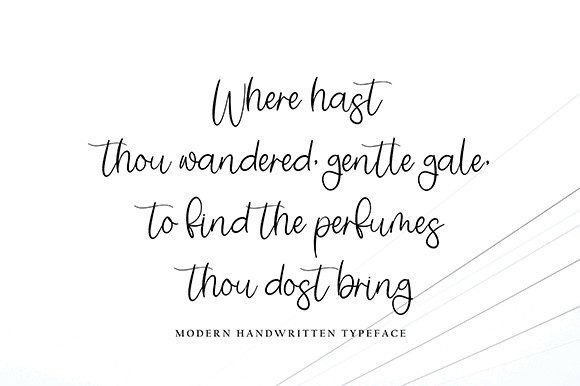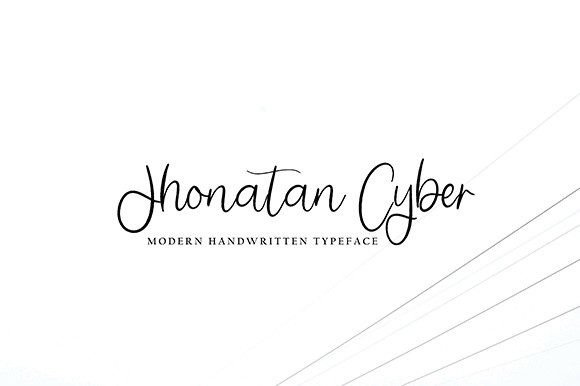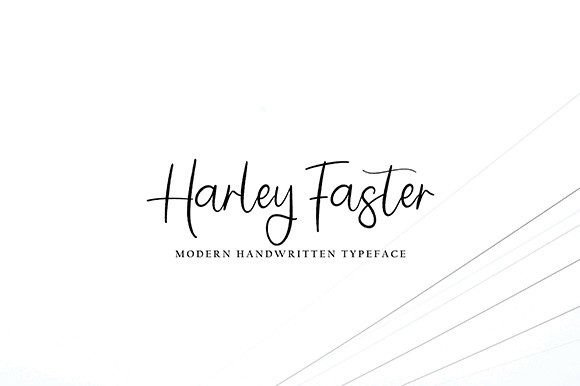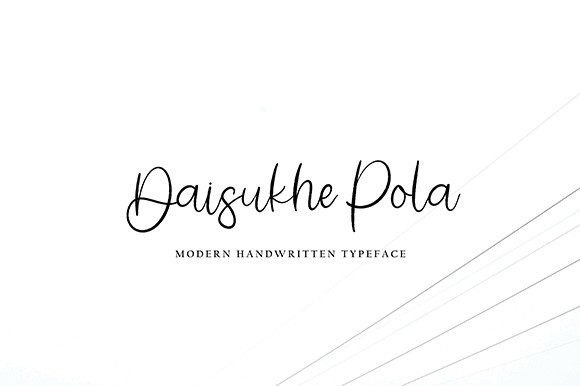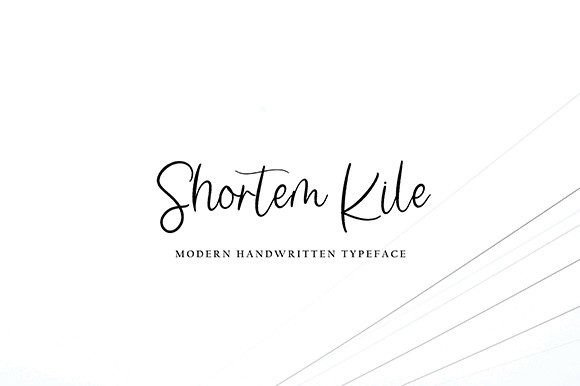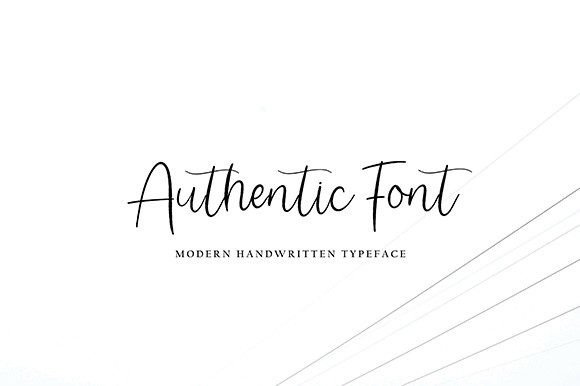
Introduction to Jhaligho Font
Imagine you’re sitting at your desk, surrounded by scattered papers, paint swatches, and a cup of coffee that’s seen better days. The creative juices are flowing, and you’re on the hunt for the perfect font to bring your design to life. As you scroll through your favorite design resources, one font catches your eye – Jhaligho Font. Its elegant, handwritten feel is like a breath of fresh air, and you can’t wait to see how it’ll elevate your project.
| 👤 Author | Pineungtype & Missinklab |
For designers, finding the right font can make all the difference in a creative project. And that’s exactly why Jhaligho Font is a valuable addition to any design arsenal. With its high-quality, transparent background, it’s perfect for a wide range of applications, from wedding invitations to business cards.
Key Features of Jhaligho Font
- High-quality, unique typography for creative projects, available for free download as a design resource.
- Transparent background, allowing for easy integration with various design elements and backgrounds.
- Includes a range of weights and styles to suit various design needs, from bold and dramatic to elegant and refined.
- Designed to work well at high resolutions, making it suitable for large-scale creative projects and high-end printing.
- Perfect for use in branding, typography-based art, and other creative endeavors where a unique and eye-catching font is desired.
Honest Review: Jhaligho Font
As a designer, I’m always on the lookout for high-quality design resources to elevate my creative projects. The Jhaligho Font is a great addition to my toolkit, and I’m excited to share my honest review with you.
- The Jhaligho Font has a unique, exotic flair that adds a touch of elegance to any design project.
- The transparent background allows for easy customization and pairing with other design elements.
- The Jhaligho Font may not be suitable for projects requiring a more modern or minimalist aesthetic.
- The font’s exotic flair may be overwhelming for some design projects, so it’s essential to use it sparingly.
Overall, I’m impressed with the Jhaligho Font’s quality and versatility. While it may not be the best fit for every project, it’s a valuable addition to any designer’s arsenal. If you’re looking for a unique and high-quality font to elevate your creative project, the Jhaligho Font is definitely worth checking out.
Tips for Getting the Most Out of Jhaligho Font
For optimal results, use the Jhaligho Font in conjunction with a high contrast background to make the font stand out. You can also experiment with different font sizes and styles to create a unique look.
The Jhaligho Font is great for use in creative projects such as brochures, posters, and social media graphics. Its high quality and transparent background make it a great resource for designers looking to add a unique touch to their work.